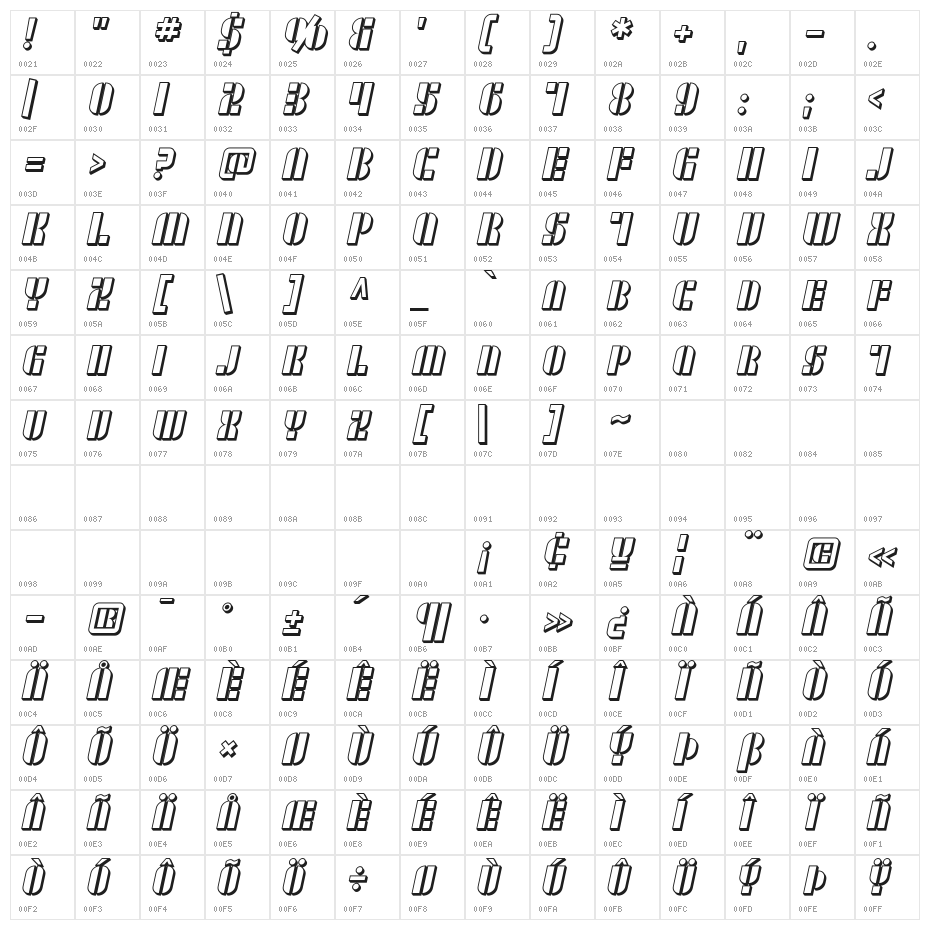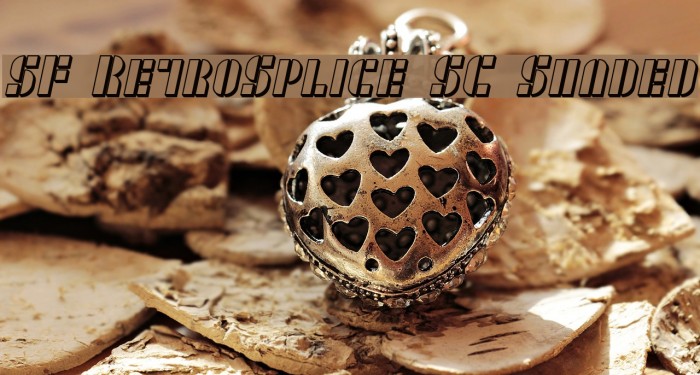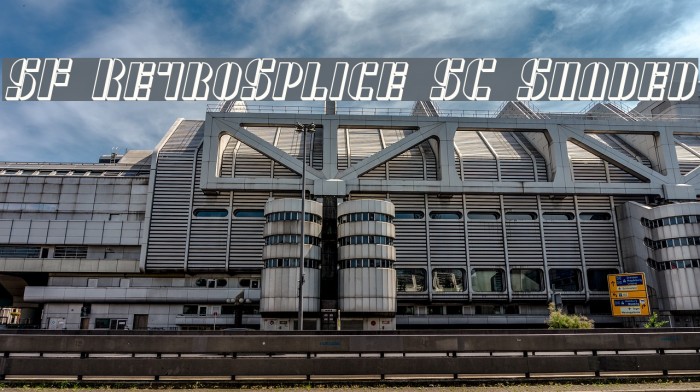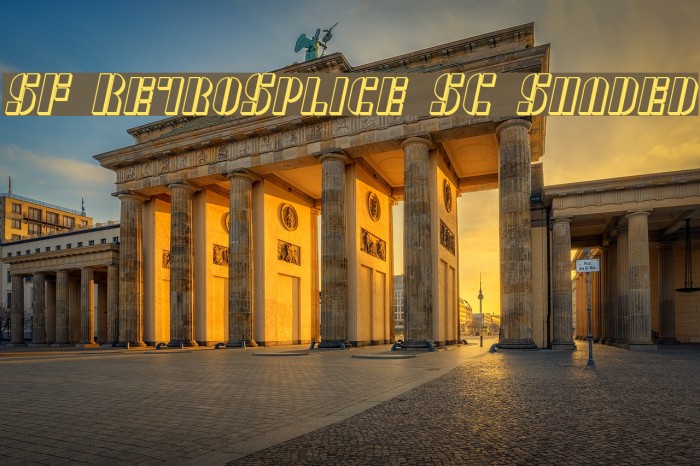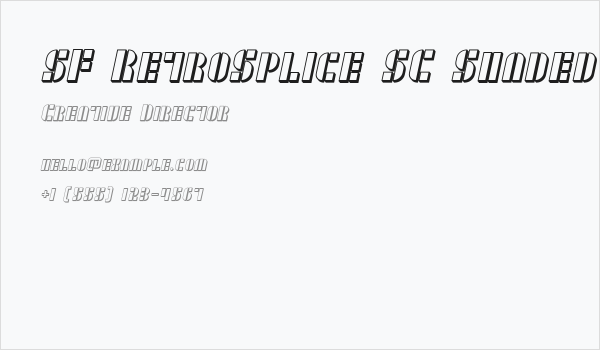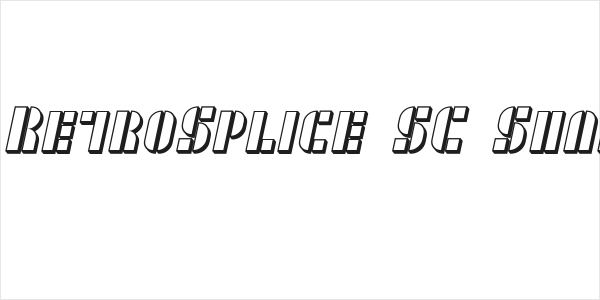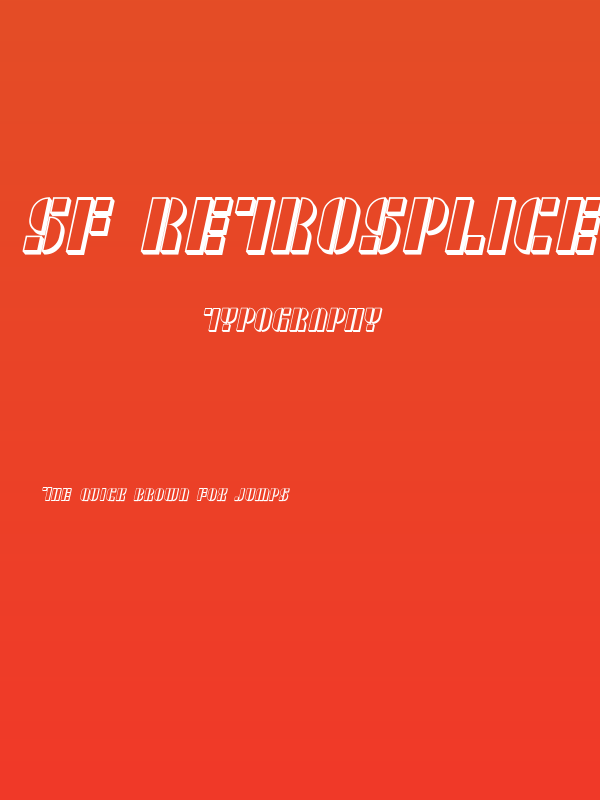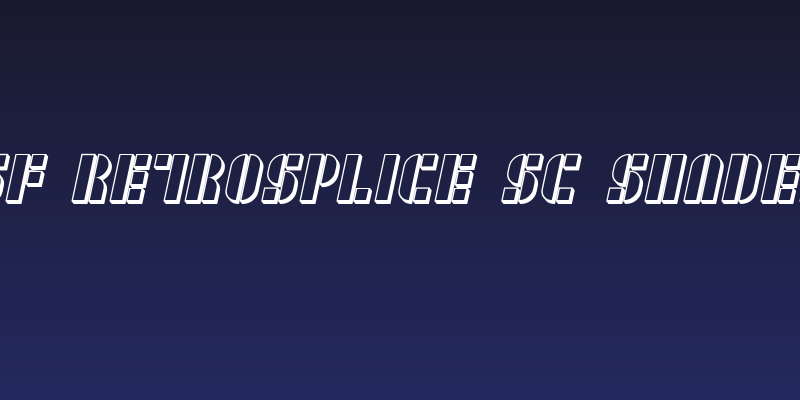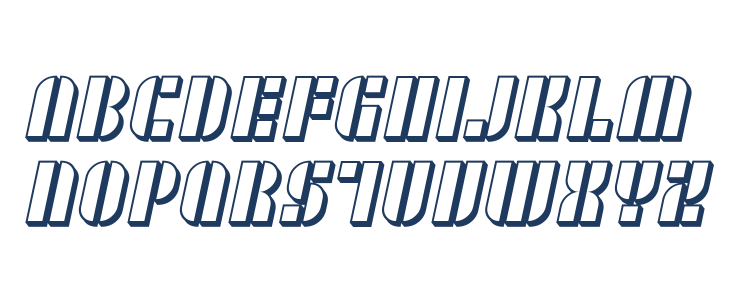
SF RetroSplice SC Shaded Font
SF RetroSplice SC Shaded Description
This font features a bold, retro-inspired design with a unique shaded effect that gives it a three-dimensional appearance. The characters are uppercase and have a distinct slant, adding a sense of movement and dynamism. The shading is consistent across all characters, enhancing the visual depth and making the text stand out. The style is reminiscent of vintage signage, with a playful yet sophisticated vibe. The font's geometric structure is balanced by the soft curves of certain letters, creating an appealing contrast. It's ideal for projects that require a nostalgic or eye-catching look.
| Proposed Projects | Ideal for vintage-themed posters, retro branding, eye-catching headlines, and creative logo designs. |